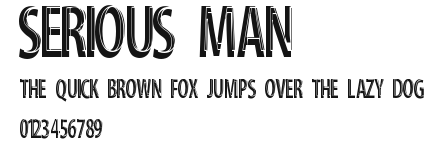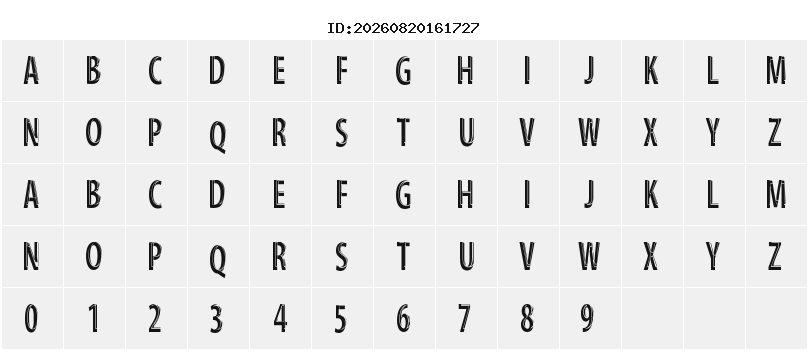
Serious Man Preview
• Font Name: Serious Man
About Serious Man.ttf
Serious Man.ttf is a modern, elegant sans-serif font designed for ultimate readability and visual harmony. Perfect for branding, headlines, web design, and print materials.